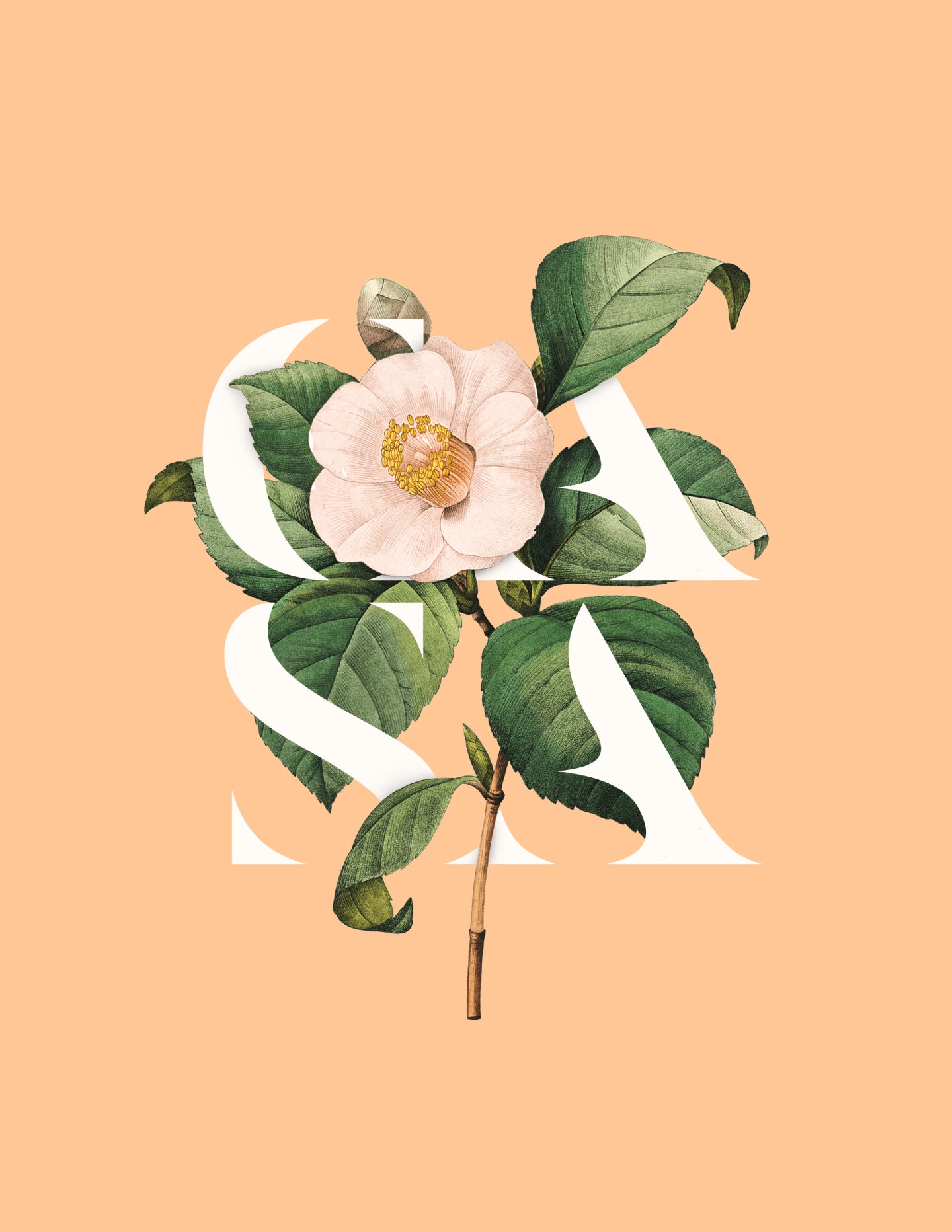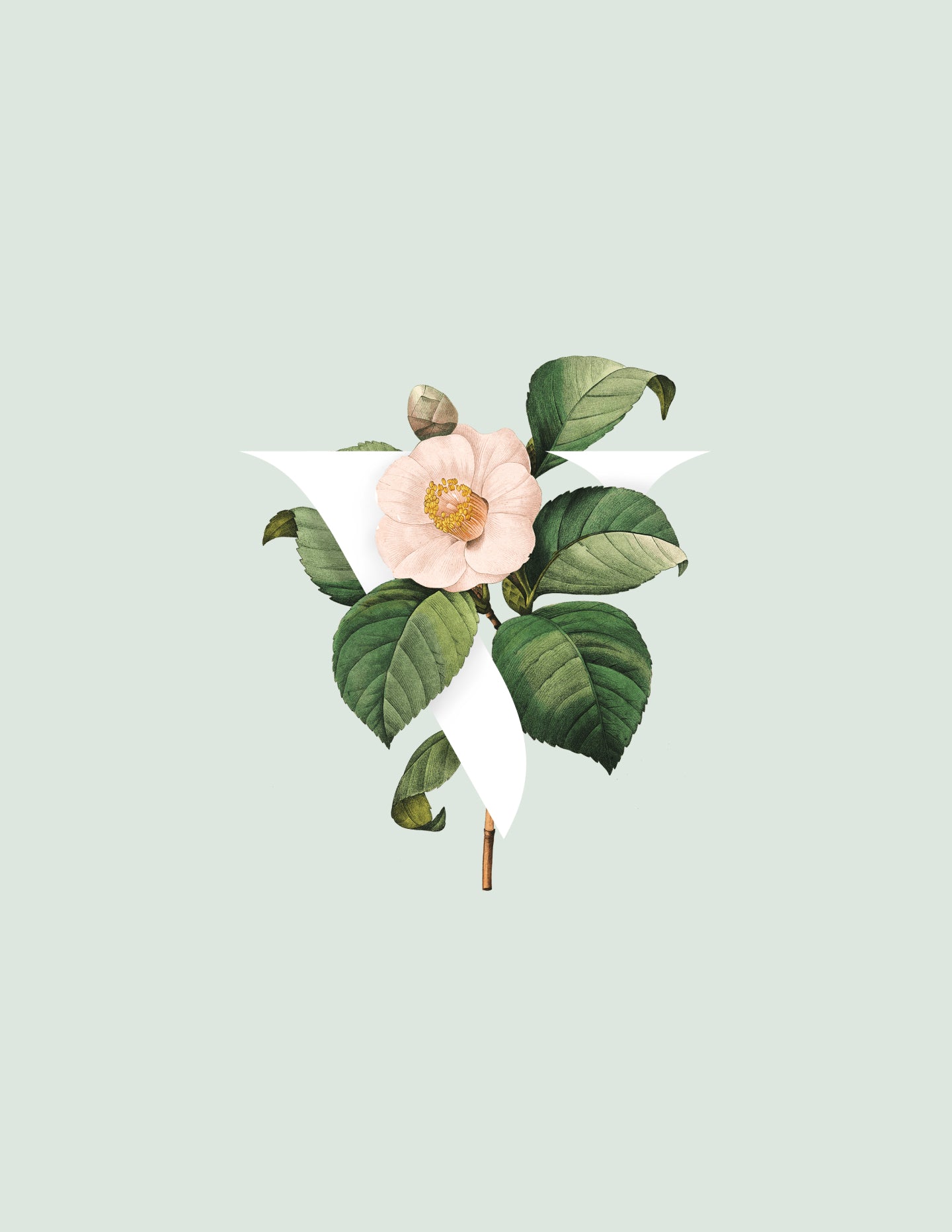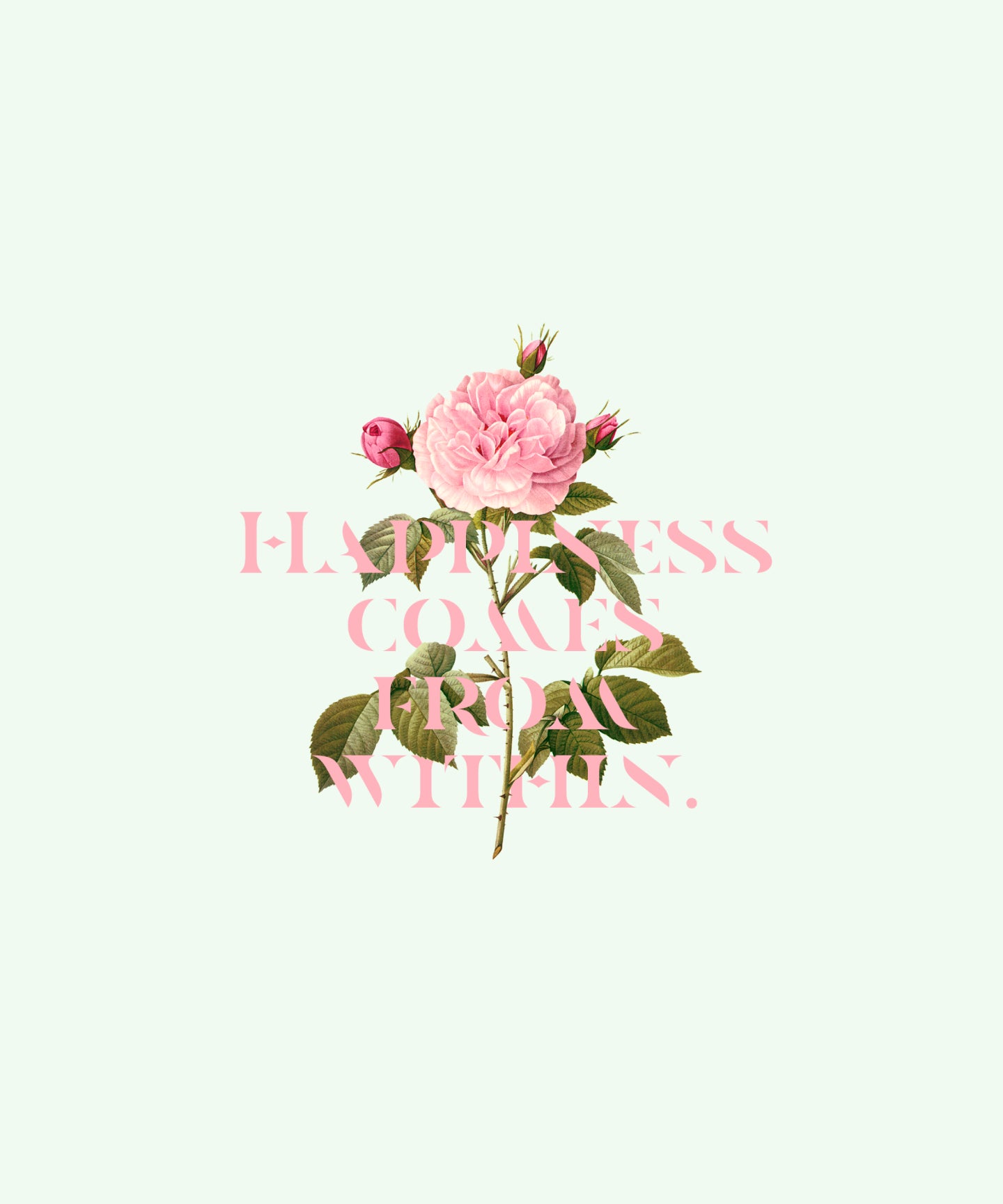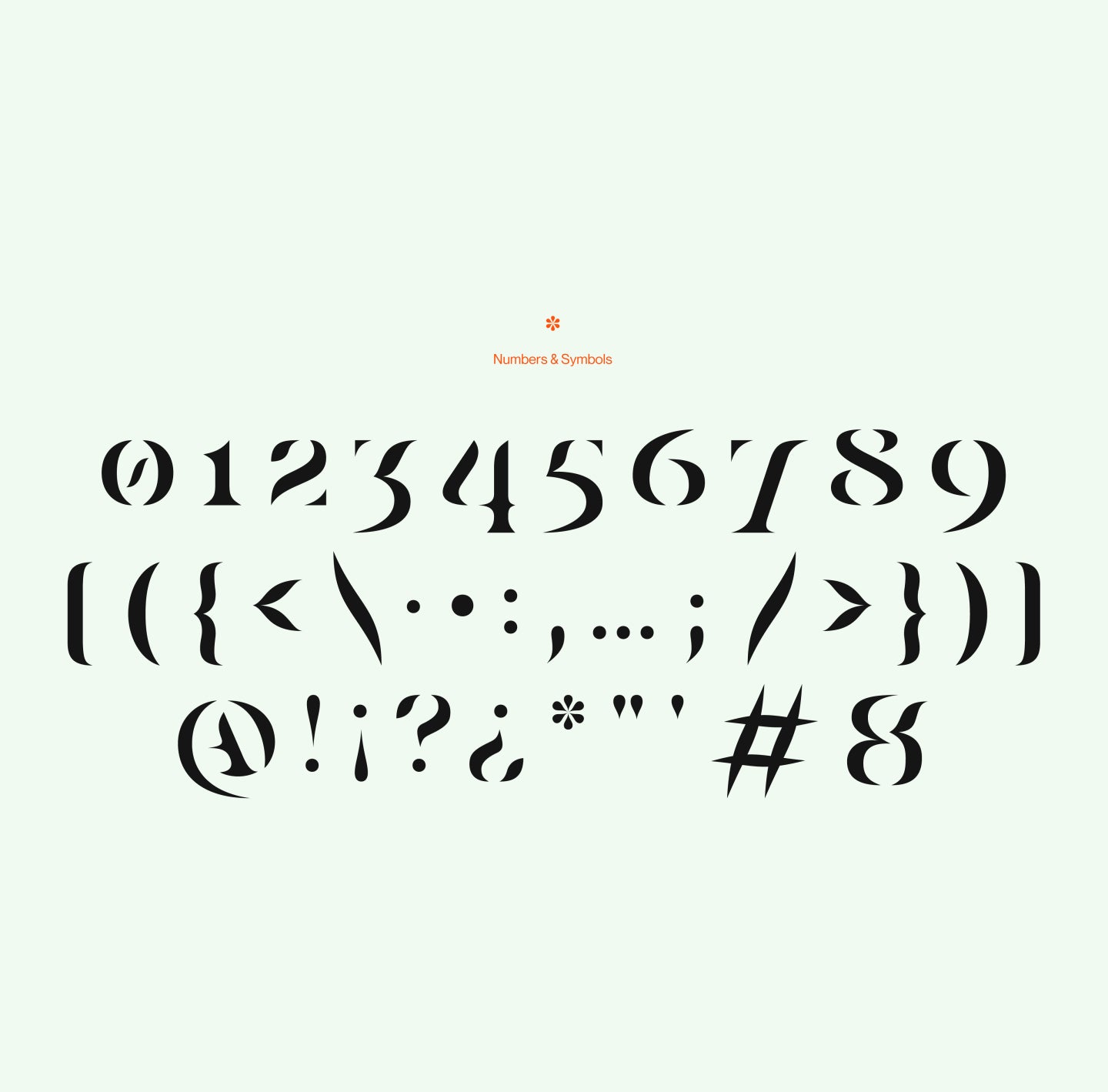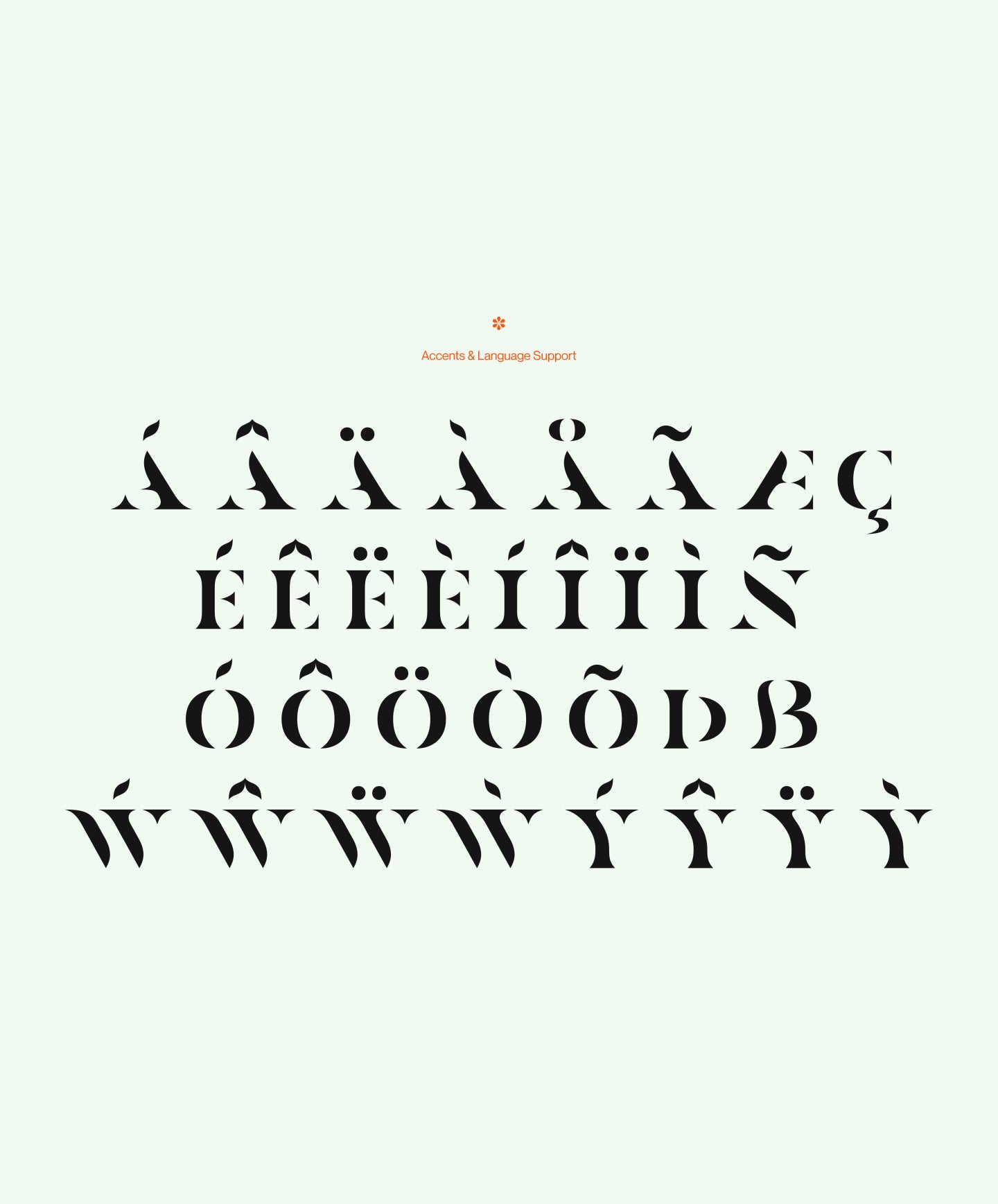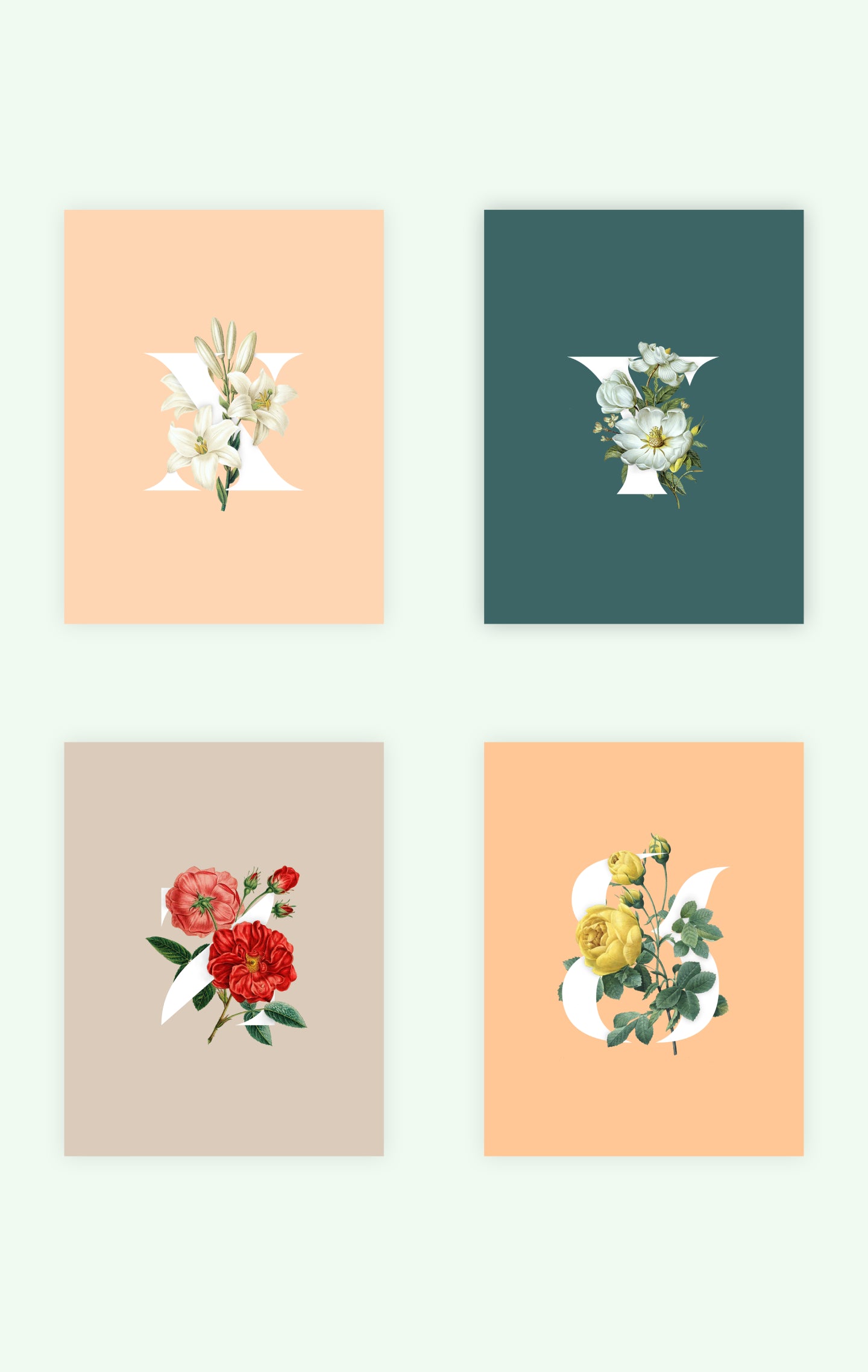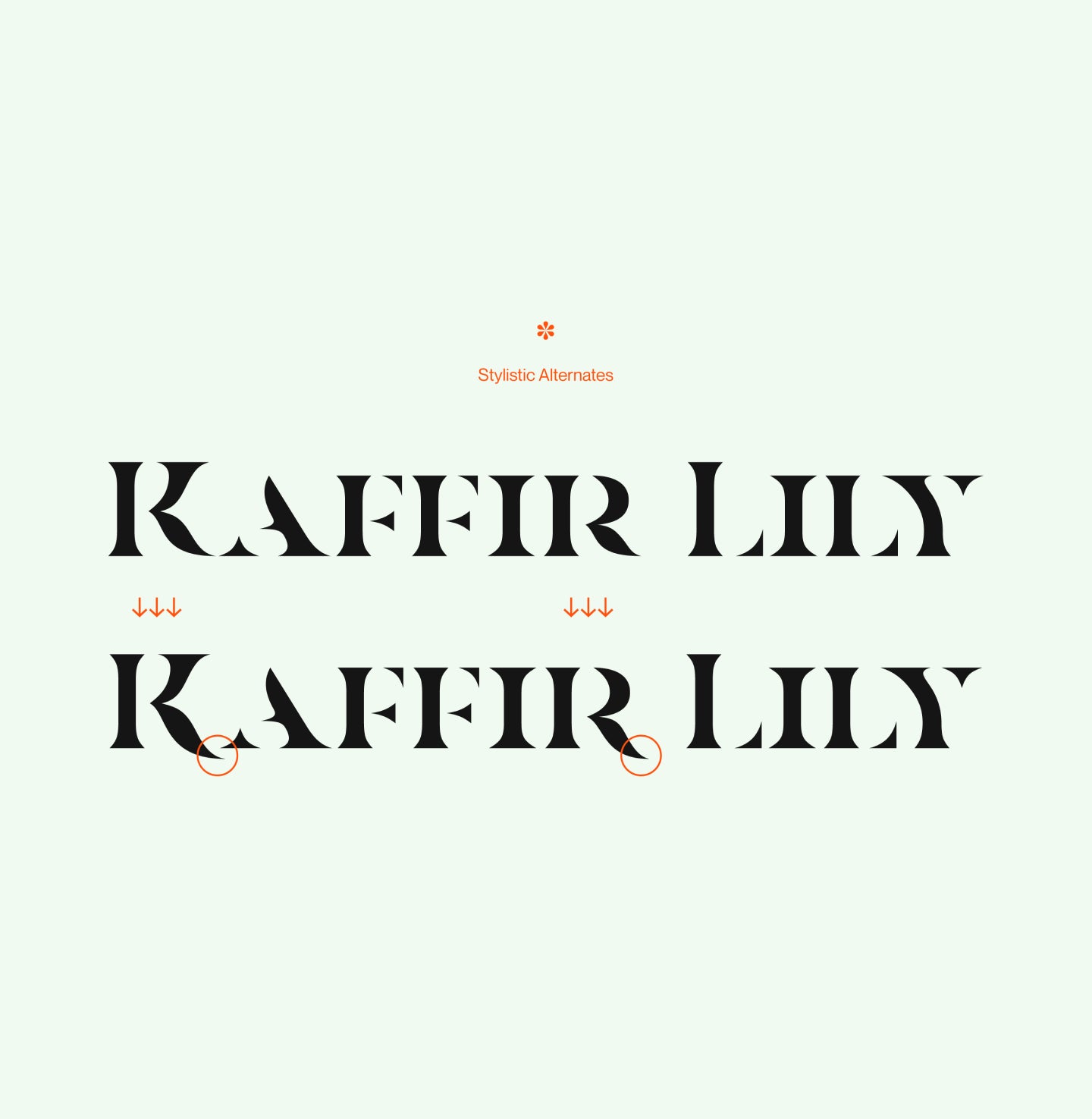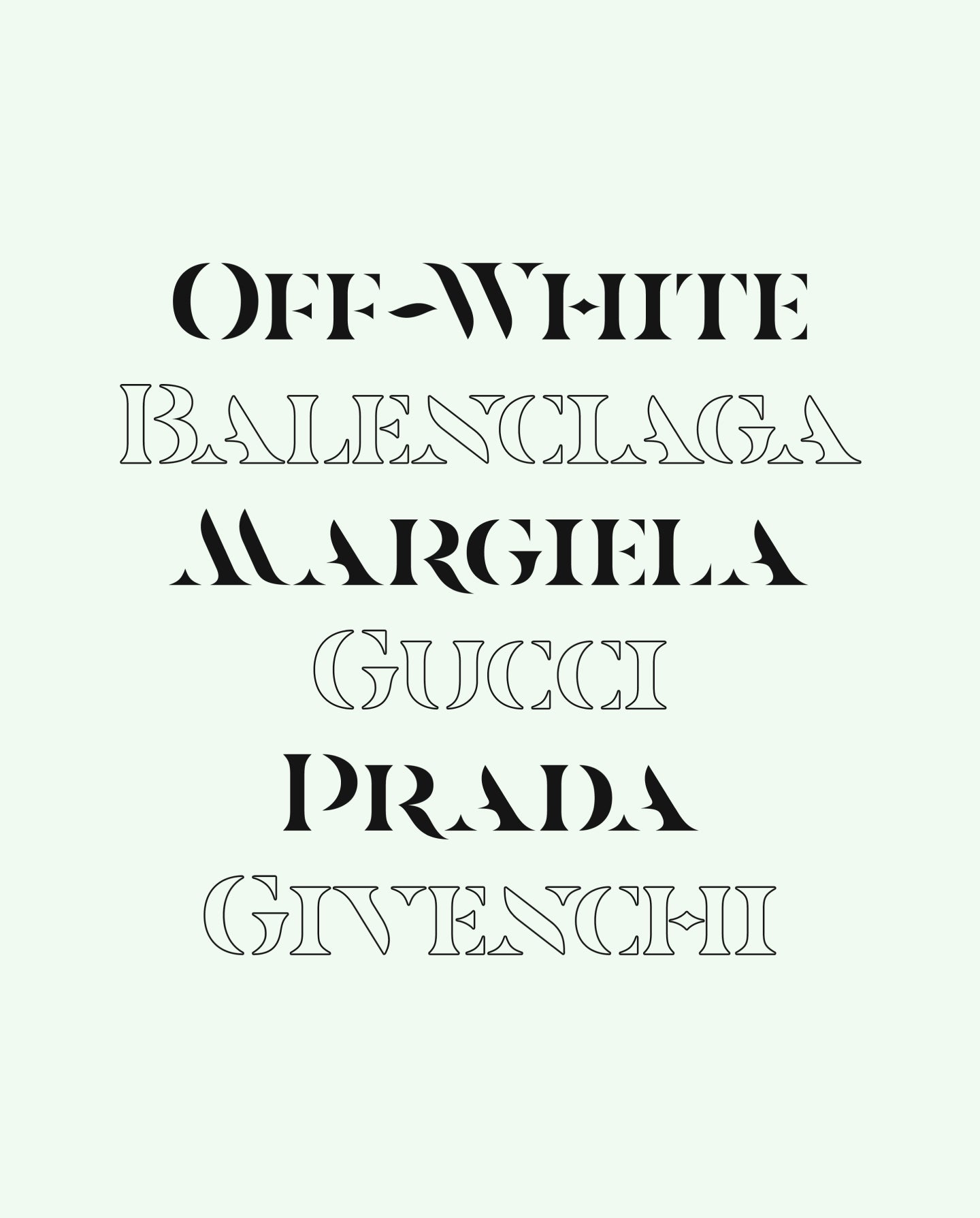
Casa Stencil
Casa Stencil is a beautiful, elegant stencil font that features soft curves and a sense of erosion
Soft Curves. Sharp Character.
Casa Stencil is a beautiful, elegant stencil font that features soft curves and a sense of erosion. Its presence will definitely make your designs unique. It is made for all your title and logo needs.